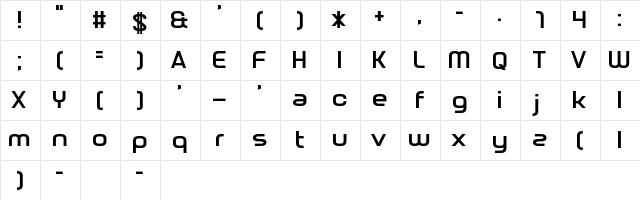
Nebulous Content Regular
| Designer | NAL |
Design Context for Nebulous Content Typeface
Nebulous Content is a composed and adaptable typeface that performs quietly and consistently across a wide range of design contexts.
Pro Tip: Pair Nebulous Content with a font of contrasting weight or personality to build a more expressive typographic hierarchy.